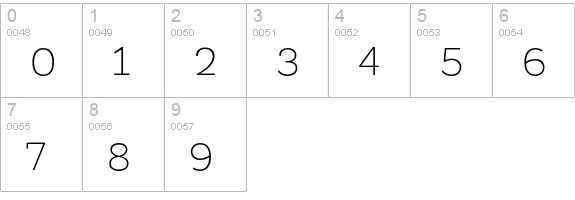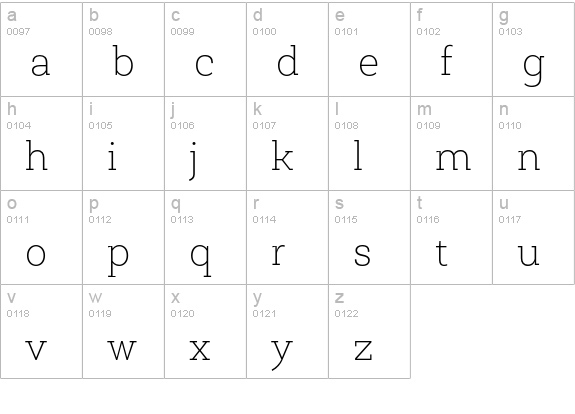
Newslab Thin Font Details
Newslab Thin is a delicate, low-contrast variant in the Newslab typeface family \xE2\x80\x94 well suited to fashion editorial, minimal branding, and high-contrast display.
Newslab Thin font is a sleek and modern typeface that exudes sophistication and elegance. With its clean lines and minimalist design, this font is perfect for creating a polished and professional look in your projects. The thin weight of the font adds a touch of delicacy and refinement, making it ideal for use in headings, logos, and other design elements where a subtle and stylish appearance is desired. What's even better is that Newslab Thin font is available for free download at FontsMarket.com. Now you can easily access this high-quality font for your design needs without any cost. Whether you are working on a branding project, creating a website, or designing promotional materials, Newslab Thin font will elevate your work with its sophisticated and contemporary style. Don't miss out on this fantastic opportunity to enhance your designs with this elegant and versatile typeface. Download Newslab Thin font today and take your projects to the next level!